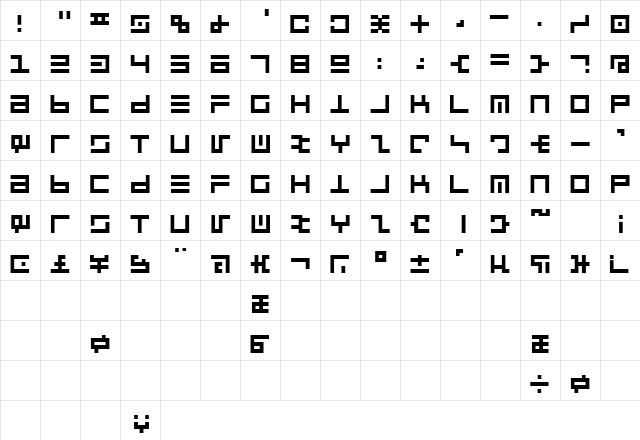
BureaucratCapsSSK Regular
Design Context for BureaucratCapsSSK Typeface
BureaucratCapsSSK offers clean, dependable letterforms without strong stylistic allegiance, making it a practical choice for designers who need flexibility.